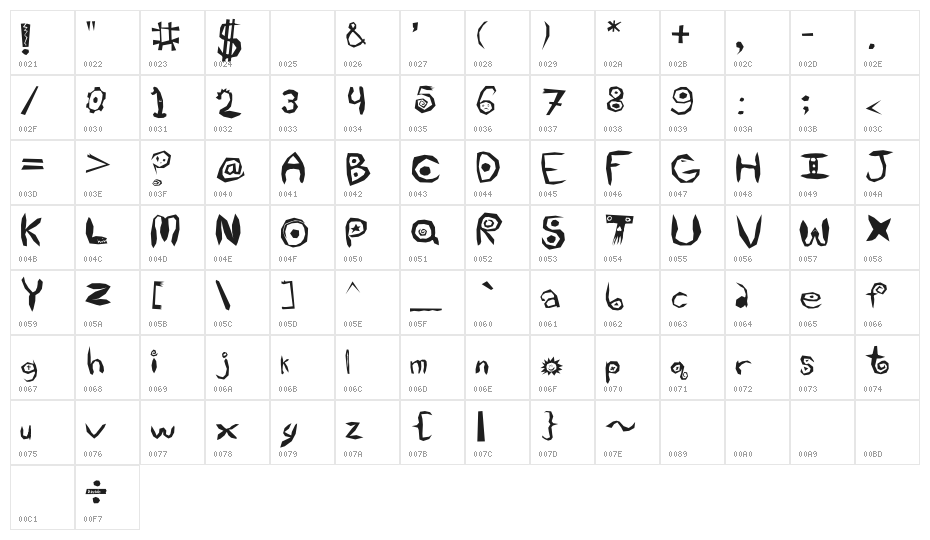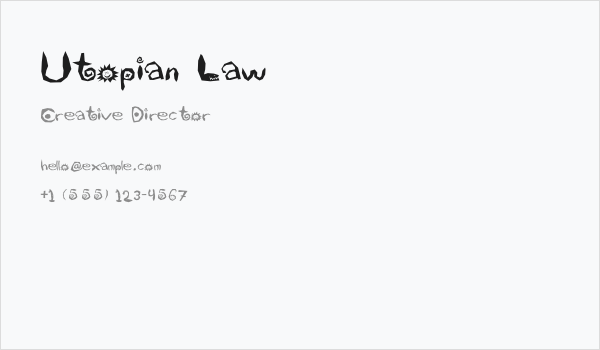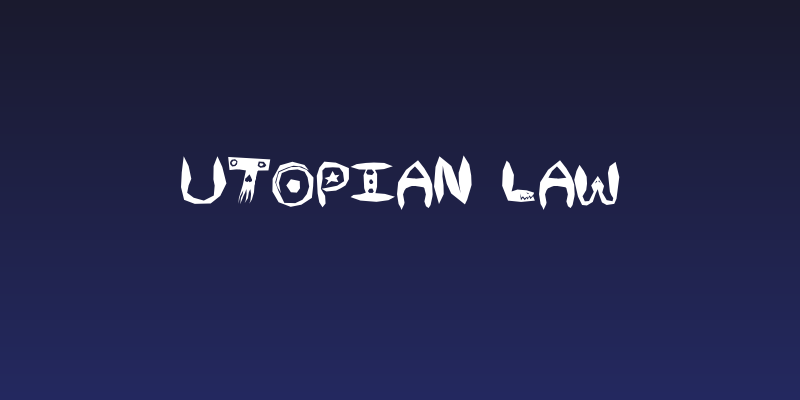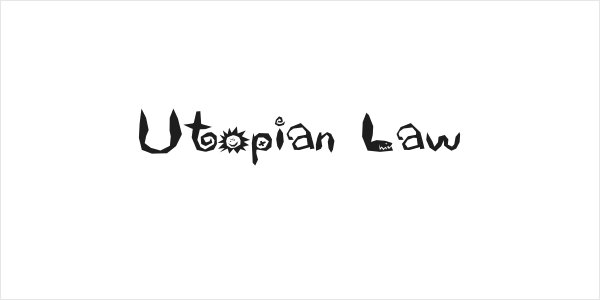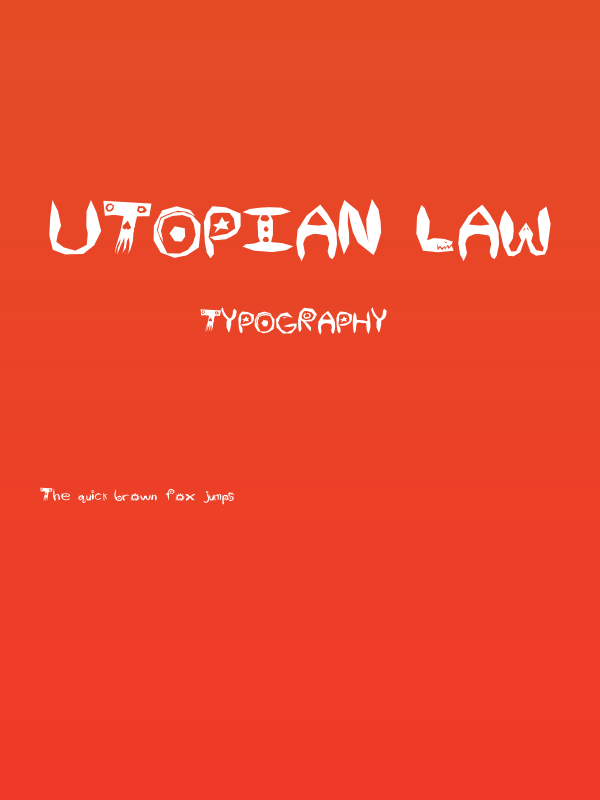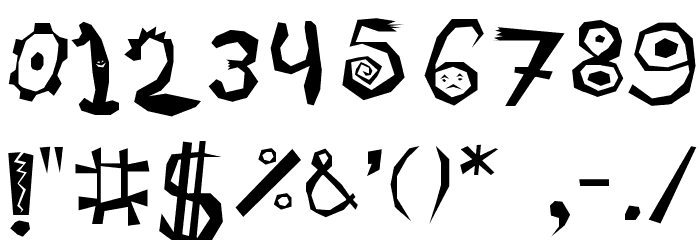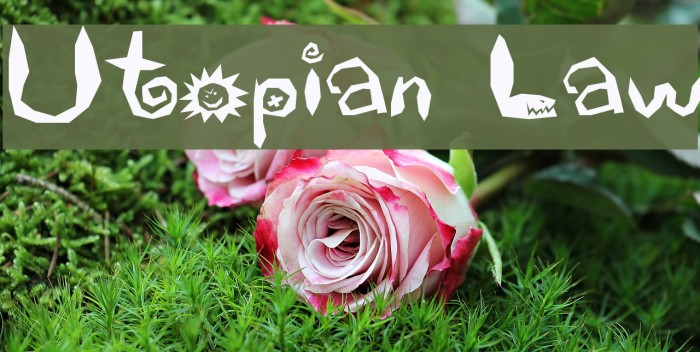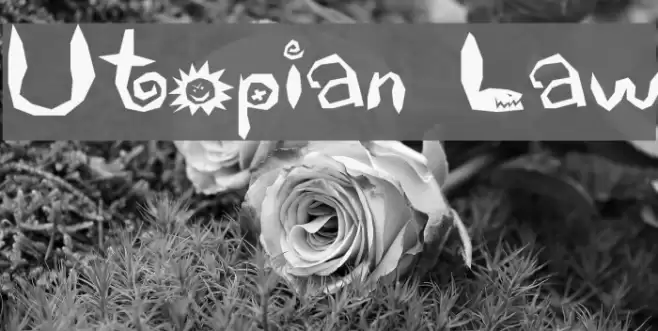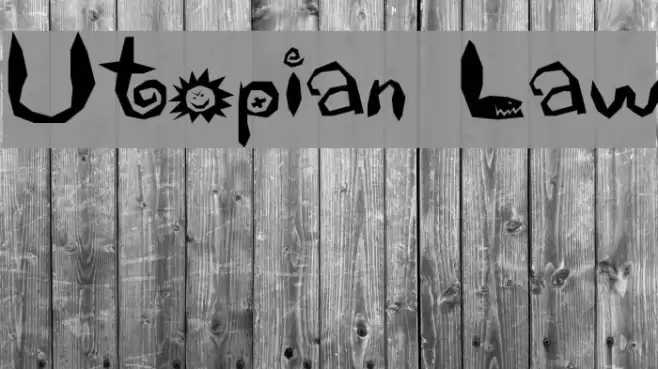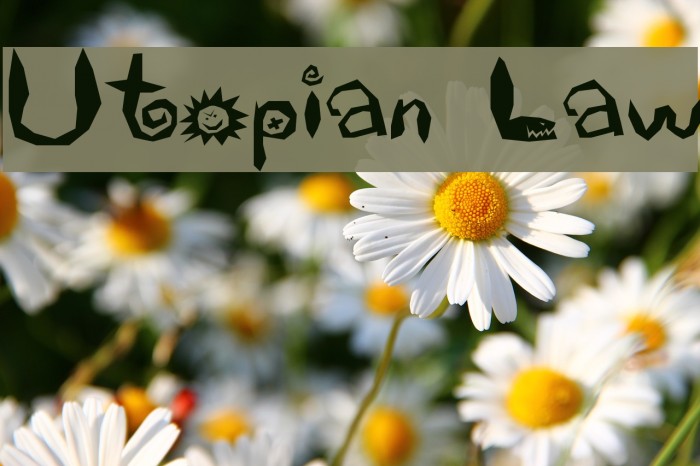
Utopian Law Font
This font features a highly decorative and whimsical style, characterized by its playful and irregular shapes. Each character is uniquely designed with quirky elements, such as eyes, spirals, and jagged edges, giving it a dynamic and animated appearance. The uppercase and lowercase letters maintain a consistent theme of eccentricity, with some letters incorporating faces or abstract designs. The numbers and special characters continue this playful motif, making the font ideal for creative and unconventional projects. The overall design is bold and eye-catching, with a strong visual impact that is perfect for grabbing attention.
| Proposed Projects | Ideal for children's books, Halloween-themed designs, party invitations, and creative posters. |